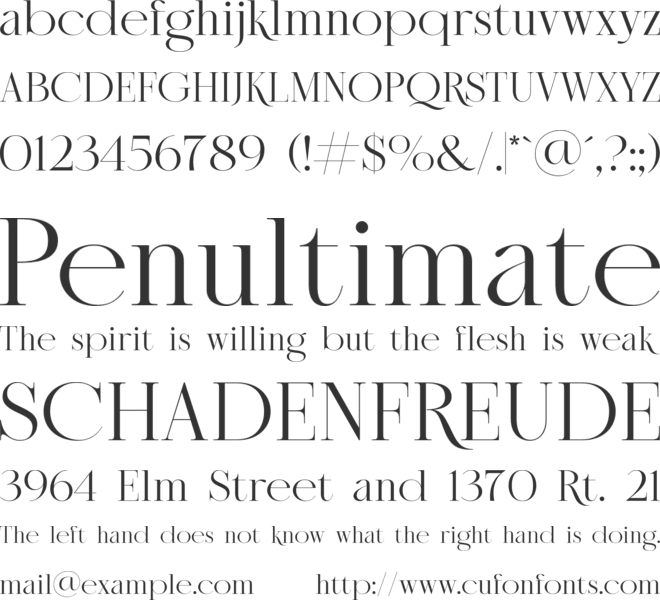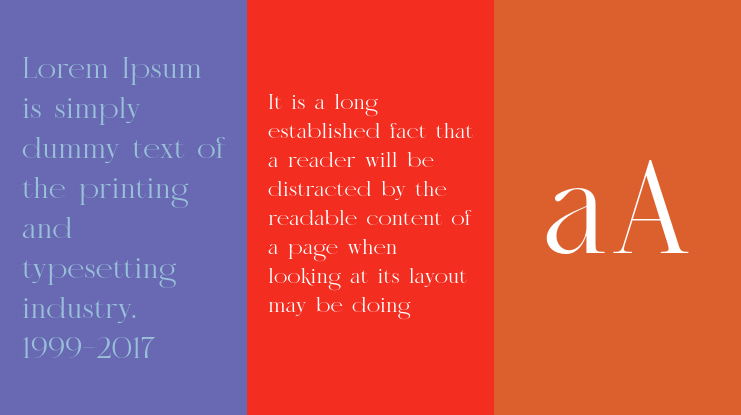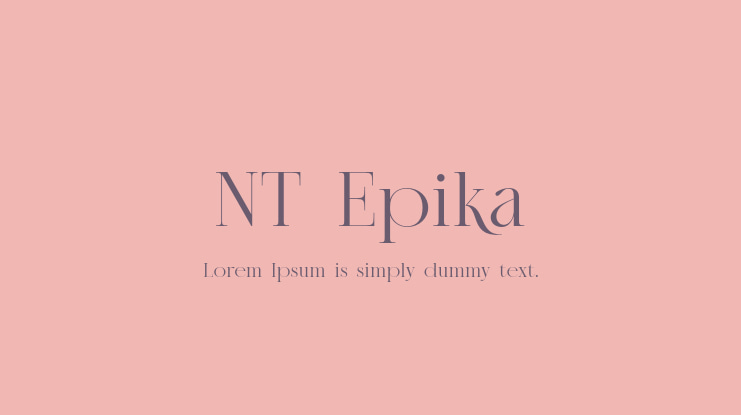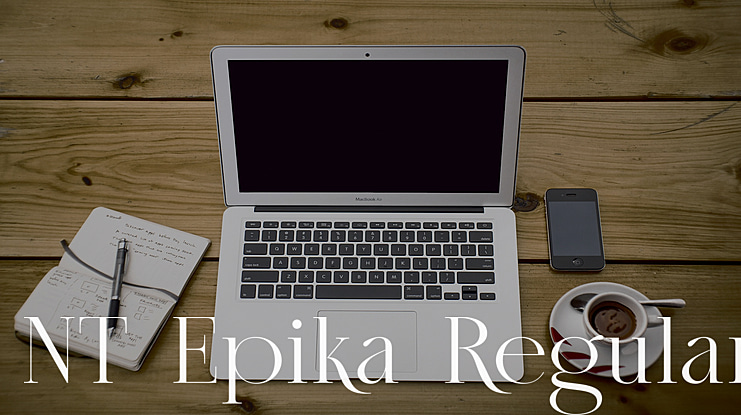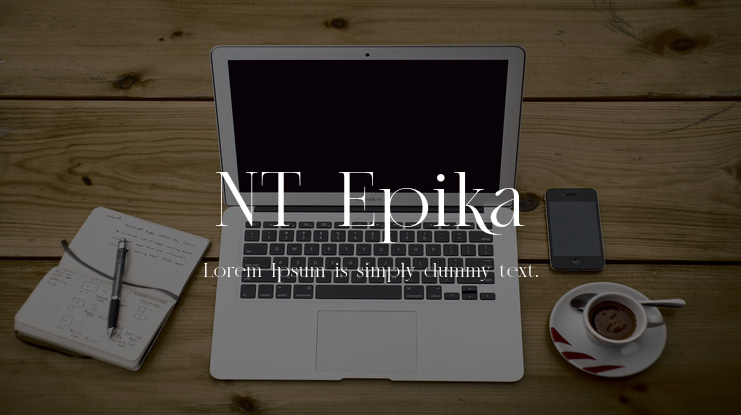
NT Epika Font Family
Artem Nevsky
"NT Epika" is a modern serif typeface. This font needs to be in your collection and is perfect for your next design project.
"NT Epika" will perfect for many project: invitations, postcards, posters, book covers, advertisements, website headers, logos, magazines, fashion, branding, photography etc.
"NT Epika" supports over 200 Latin-based languages.